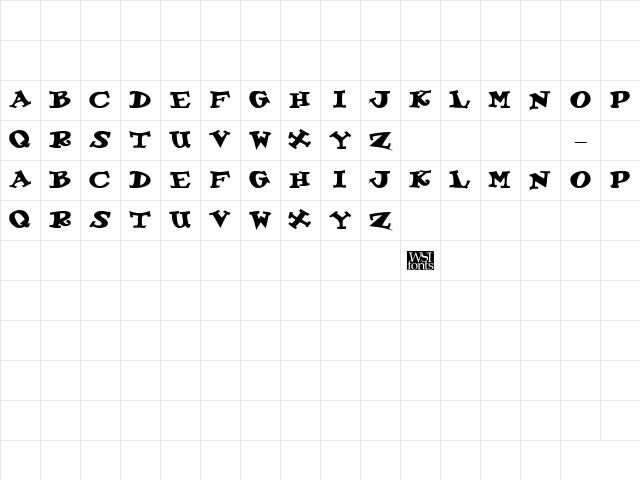
KoolKapsDisplayHvy is built around its visual character rather than neutral utility - its distinctive forms are designed to make an impression at display sizes. Its bold stroke weight gives it real presence on the page.
Font Pairing: Pair with a clean neutral sans-serif for body copy to let KoolKapsDisplayHvy's character lead without overwhelming the composition.
Pro Tip: Use KoolKapsDisplayHvy exclusively at display sizes - it was designed to be seen, not read at length. Let a neutral companion handle body copy.